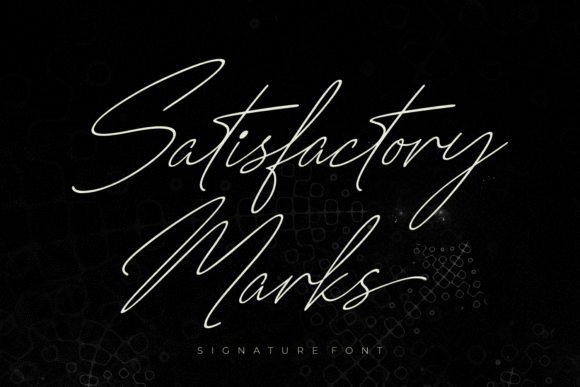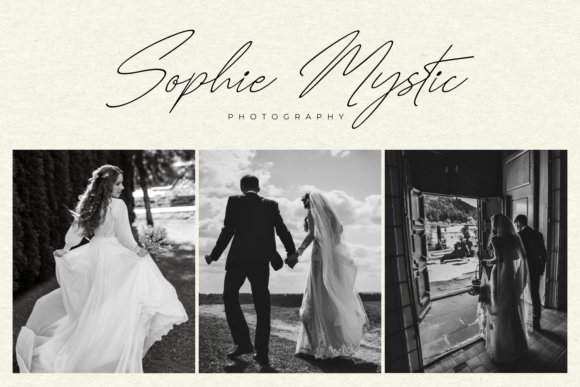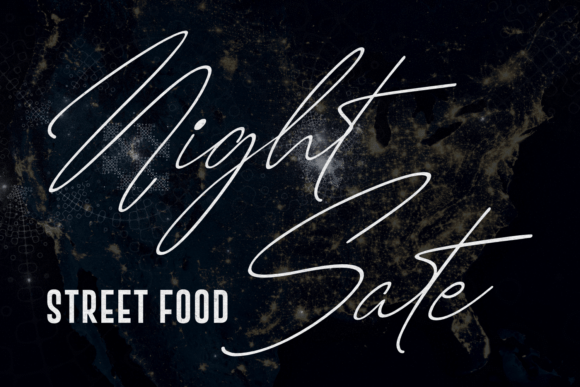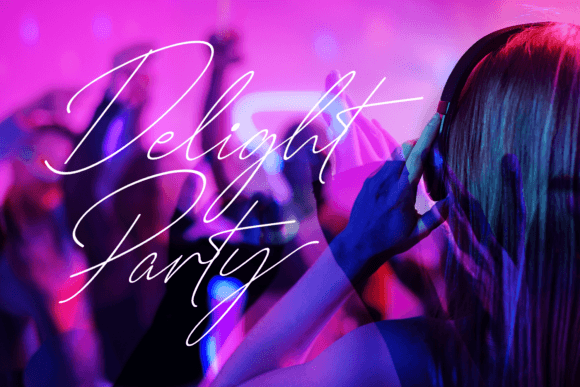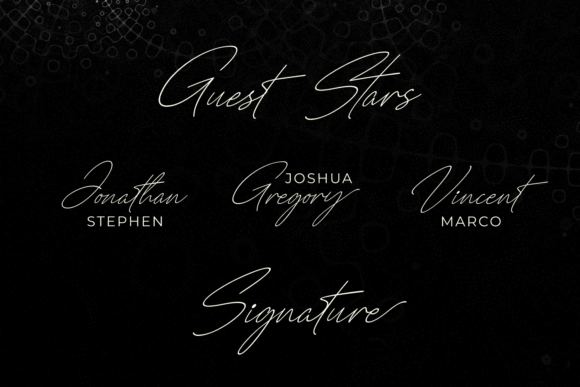
About Satisfactory Marks
Satisfactory Marks is a signature font with a stylish handwritten feel full of curves, swashes, lines, and more. It’s perfect for greeting cards, magazines, headers, social media, and more.